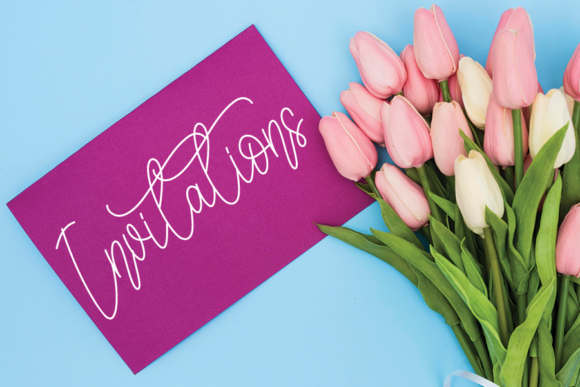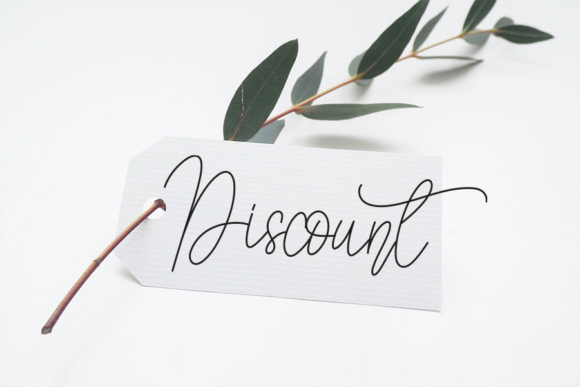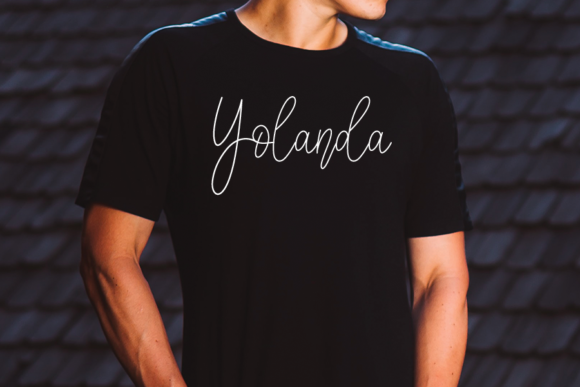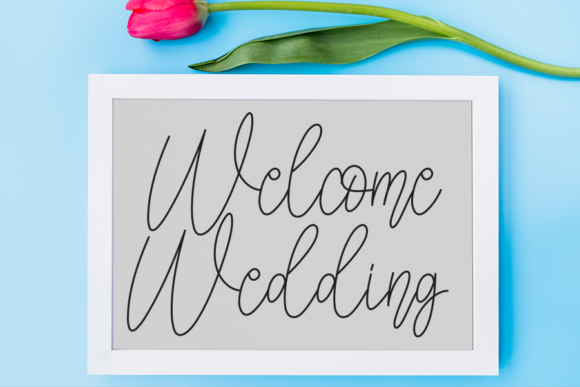
The Perfect Dance Partner for Your Creative Projects
You know that moment when a spark of creativity strikes, and you can’t wait to bring your idea to life? For designers, that moment is often followed by the search for the perfect font to match the tone and style of their project. That’s where the Ashellina Font comes in – a thin lettered script font that’s as charming as it is playful.
With its elegant, flowing characters, the Ashellina Font adds a touch of whimsy to any design. Whether you’re creating a logo, a wedding invitation, or a children’s book, this font is sure to make your project stand out from the crowd. Its versatility and charm make it a valuable addition to any designer’s toolkit, and a must-have for anyone looking to add a little extra magic to their work.
Ashellina Font Key Features
- Font Family: Ashellina Font
- Font Style: Script, Casual
- Unique Characteristics: Ashellina Font features a unique, handwritten style with a mix of cursive and casual elements, making it suitable for creative and informal designs.
Ashellina Font Review
Overall, I was excited to dive into the Ashellina Font and see what it had to offer. Here are my honest thoughts:
- The Ashellina Font has a unique and elegant feel to it. It’s perfect for designs that need a touch of sophistication.
- The font is highly legible, making it ideal for body text and long-form content.
- The font supports a wide range of languages, including Latin, Cyrillic, and Greek.
- The font may be a bit too ornate for some designs, which can make it feel overwhelming if not used sparingly.
- The font lacks bold and italic styles, which can limit its versatility.
- The font may not be suitable for display headings or titles due to its delicate nature.
In conclusion, the Ashellina Font is a solid choice for designers looking for a elegant and legible font. While it may have some limitations, it’s a great option for body text and content-heavy designs. With a bit of creativity and restraint, the Ashellina Font can add a touch of sophistication to any project.
Ashellina Font: A Practical Application Guide
Ashellina Font is ideal for creating elegant and modern designs, such as: invitation templates, business card designs, quotes, titles, business reports, resumes, and presentations.
Alternative Font Options to Ashellina Font
Cambria Font
Cambria is a classic serif font designed by Carol Twombly, suitable for body text in documents and publications. It is highly legible and aesthetically pleasing, making it an ideal choice for formal and professional designs. Cambria is a more traditional font compared to Ashellina Font, which is a modern, sans-serif font.
Montserrat is a geometric sans-serif font designed by Julieta Ulanovsky. It is a modern and urban font, ideal for digital interfaces, titles, and headings. Montserrat is more versatile than Ashellina Font, with a wider range of weights and styles available. It is also more adaptable to different screen resolutions and devices.
Lato is a modern sans-serif font designed by Łukasz Dziedzic. It is a clean and elegant font, suitable for a wide range of designs, from body text to titles and headings. Lato is more refined than Ashellina Font, with a more subtle and sophisticated feel. It is also highly legible and easy to read, making it an ideal choice for long-form content.
Inter is a modern sans-serif font designed by Rasmus Andersson. It is a highly versatile font, suitable for a wide range of designs, from digital interfaces to print materials. Inter is more contemporary than Ashellina Font, with a clean and minimalist aesthetic. It is also highly legible and adaptable to different screen resolutions and devices.